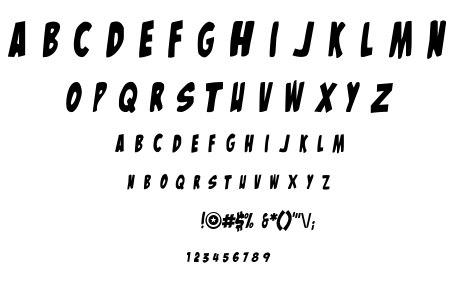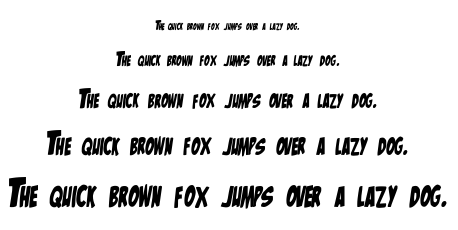
The Mighty Avengers font.
Latest fan-based font created to look like the title sequence from the latest Avengers Earths Mightiest Heroes TV series on Disney XD